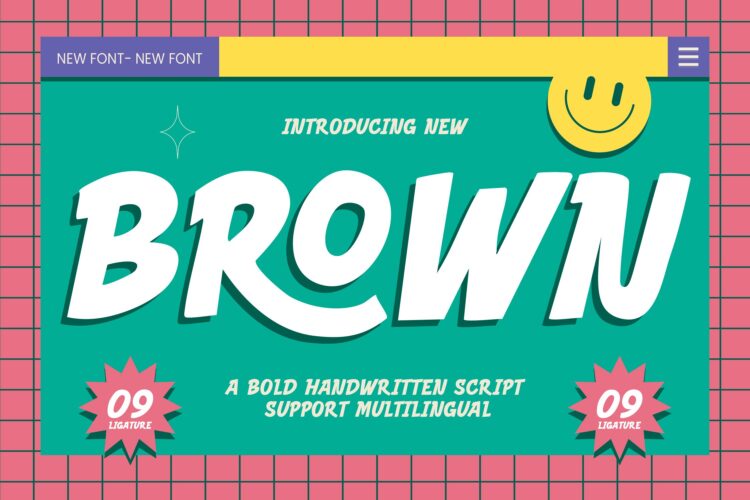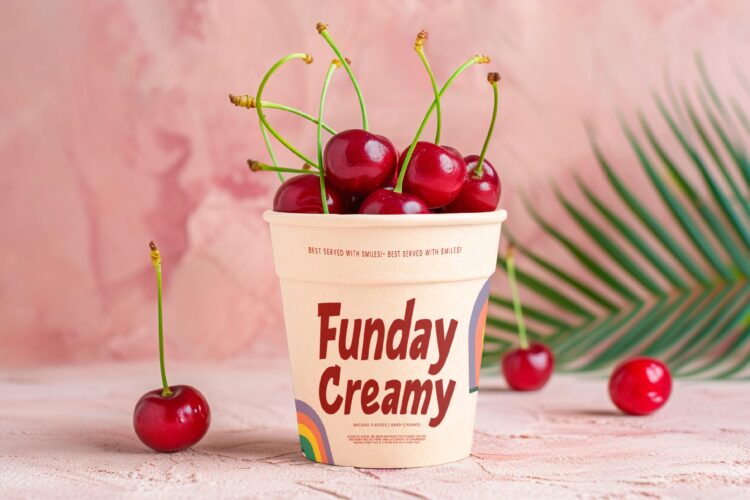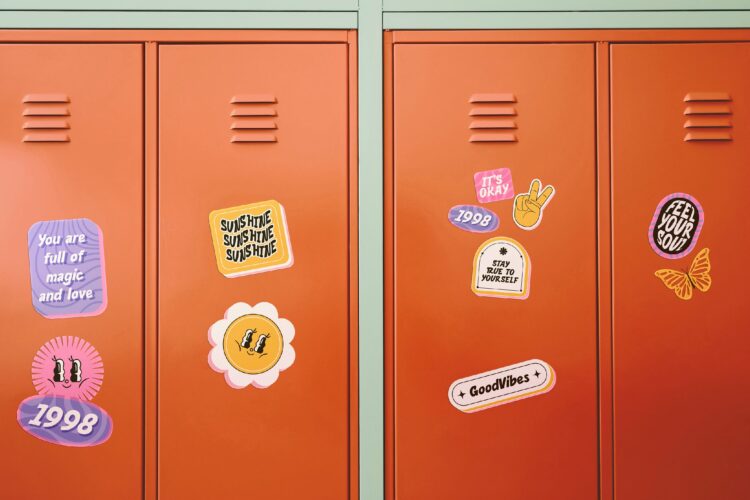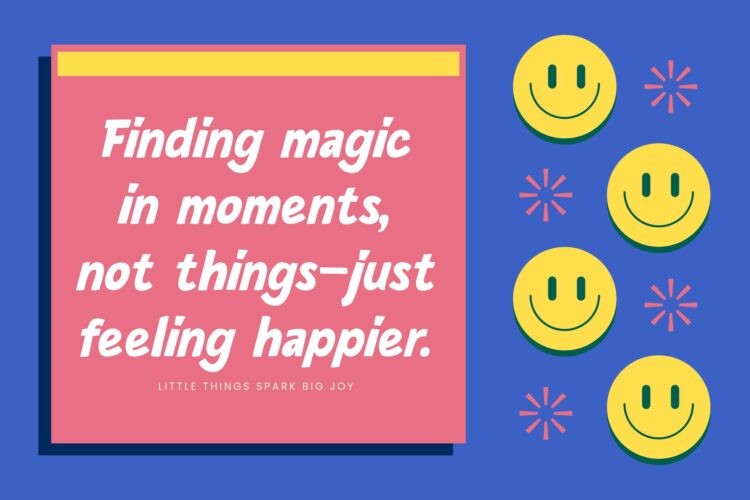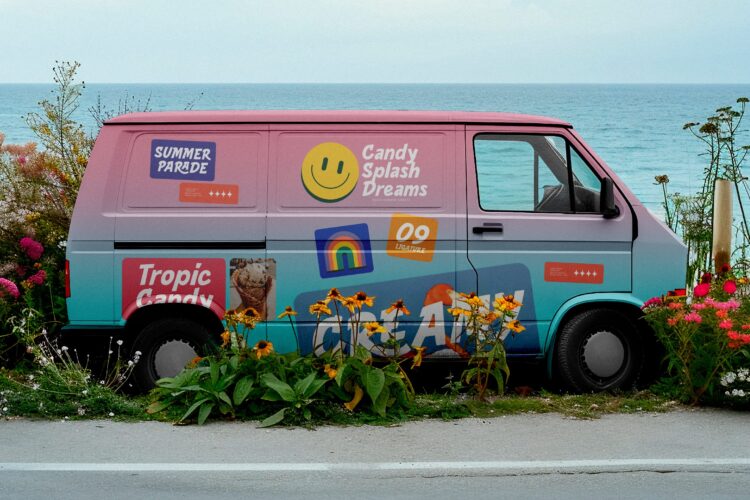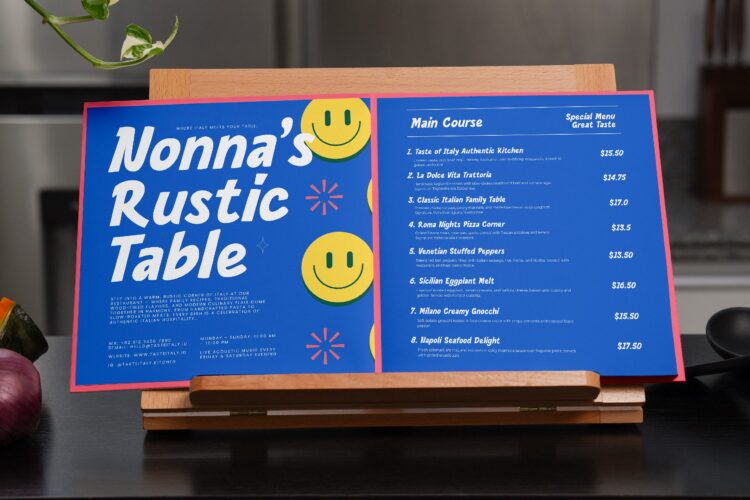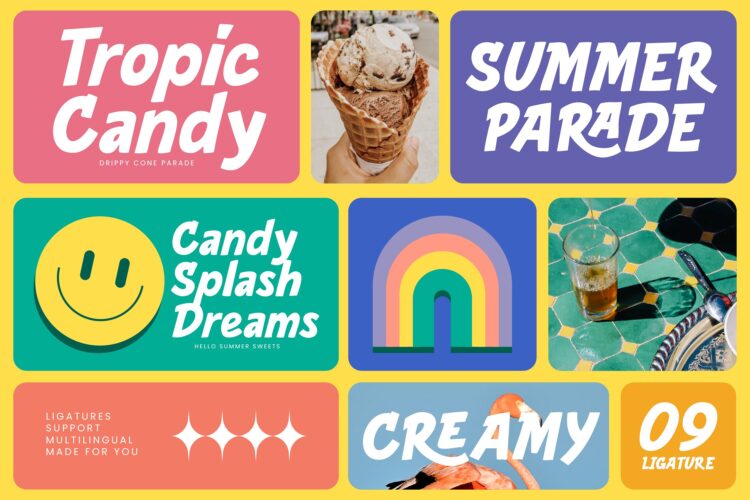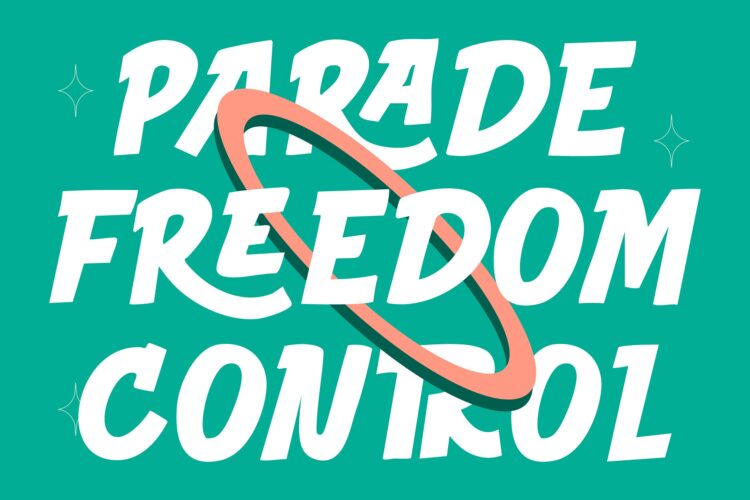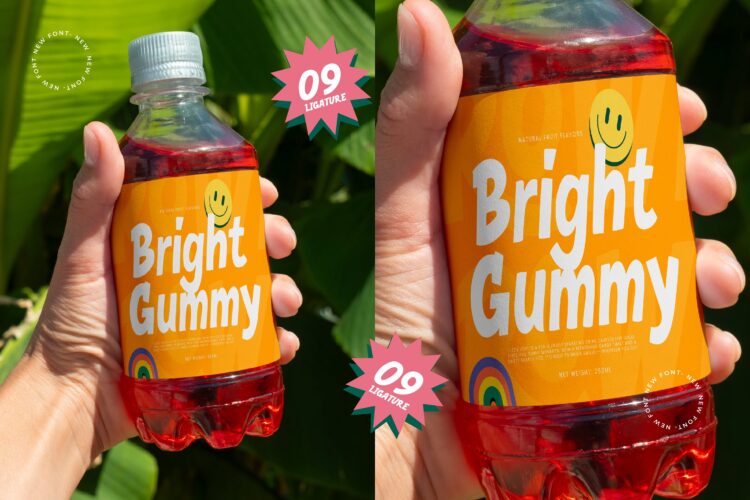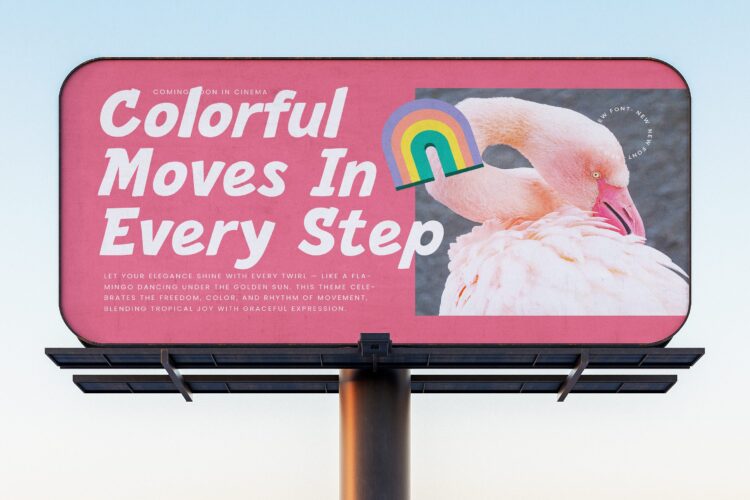
Brown handwritten script font is a unique, modern luxury font with a luxury, elegant, aesthetic and geometric style. It is a display font perfect for branding projects, logos, social media posts, product packaging, labels, etc.